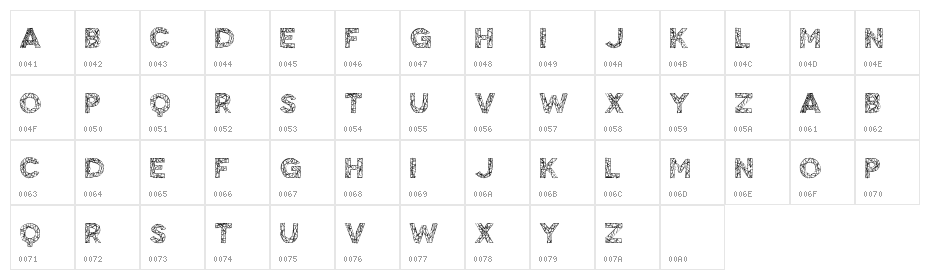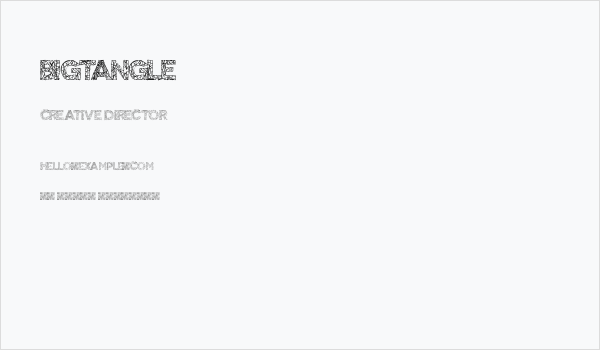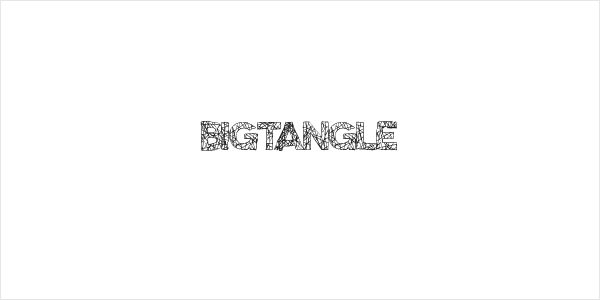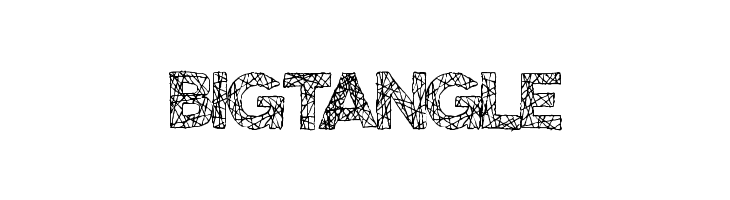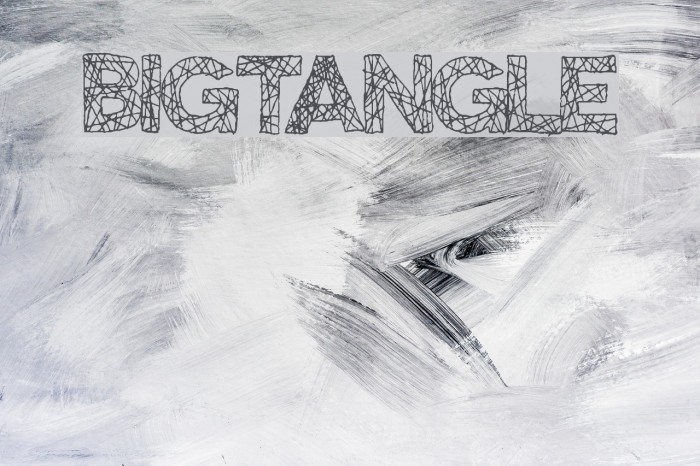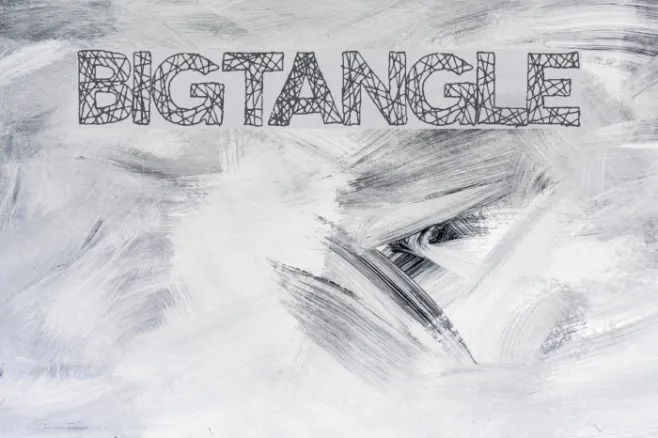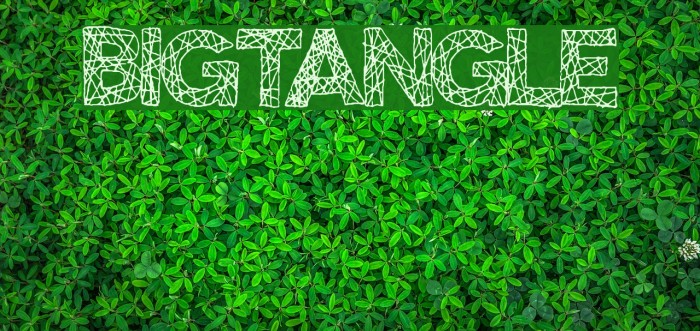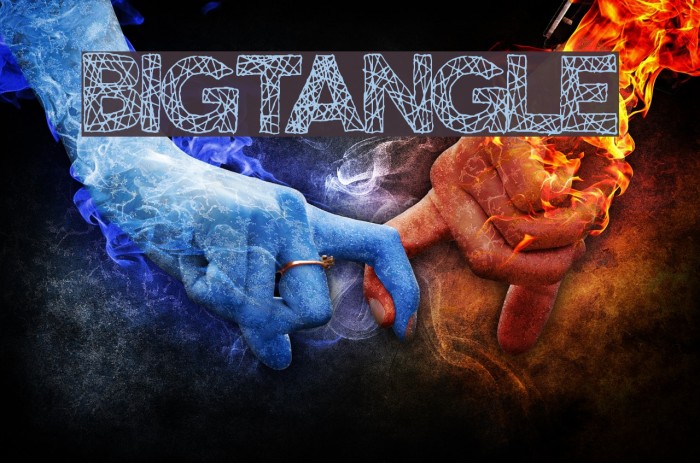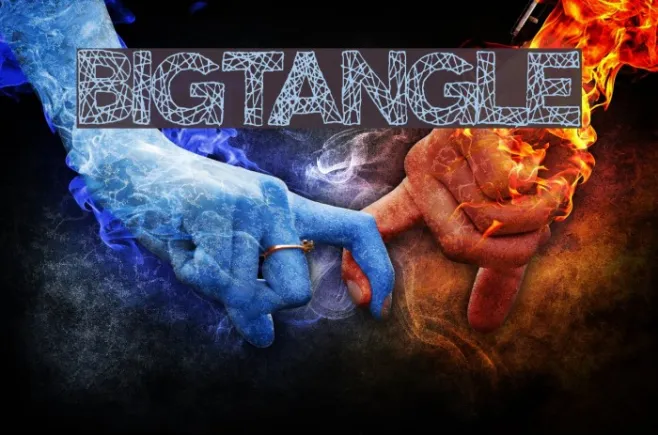
BigTangle Font
BigTangle Description
This font features a unique and intricate design, characterized by a web-like pattern that fills each letterform. The structure is bold and eye-catching, making it ideal for decorative purposes. The uppercase letters are particularly striking, with each character appearing as if woven from a complex network of lines. The style is consistent across the alphabet, maintaining a cohesive look that is both modern and artistic. This font is not suited for body text due to its elaborate design but excels in creating standout headlines or artistic logos. The overall appearance is dynamic and visually engaging, perfect for projects that require a touch of creativity and flair.
| Proposed Projects | Ideal for artistic projects, branding, logos, posters, and any design work that requires a bold and creative typeface. |